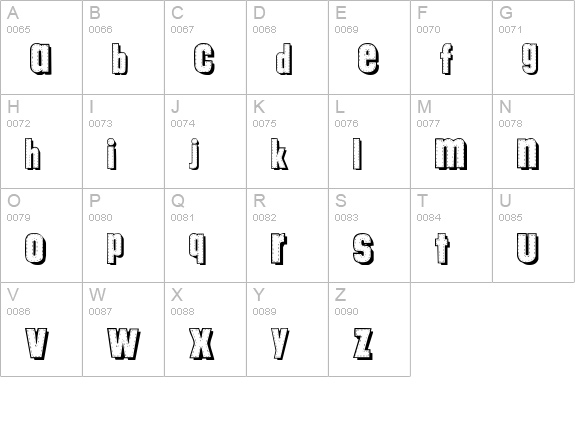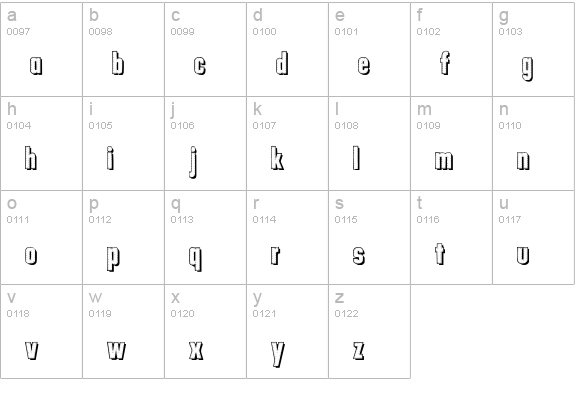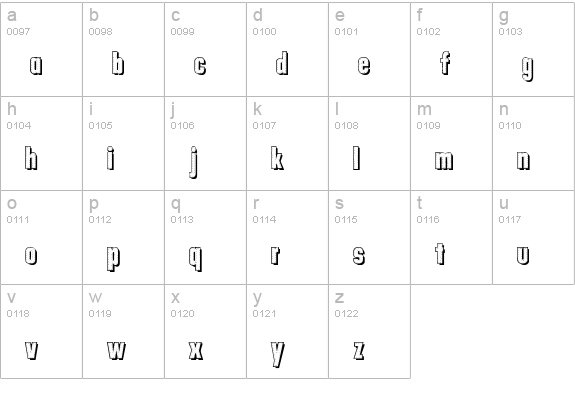
tungfont alpha 003 Font Details
Tungfont Alpha 003 is a modern and sleek font that exudes sophistication and elegance. Its clean lines and sharp edges make it perfect for a wide range of design projects, from branding to advertising to social media graphics. The versatility of Tungfont Alpha 003 allows it to be used in both digital and print mediums, ensuring that your message will always come across loud and clear. What sets Tungfont Alpha 003 apart is not only its striking aesthetic appeal but also the fact that it is completely free to download. Yes, you read that right - this high-quality font is available for free at FontsMarket.com, making it accessible to designers of all levels and budgets. Whether you're a seasoned professional looking to add a fresh twist to your projects or a newcomer eager to experiment with typography, Tungfont Alpha 003 is the ideal choice for bringing your creative vision to life. With its timeless design and effortless style, Tungfont Alpha 003 is sure to become a staple in your font library. So why wait? Head over to FontsMarket.com today and start downloading this amazing font for free!